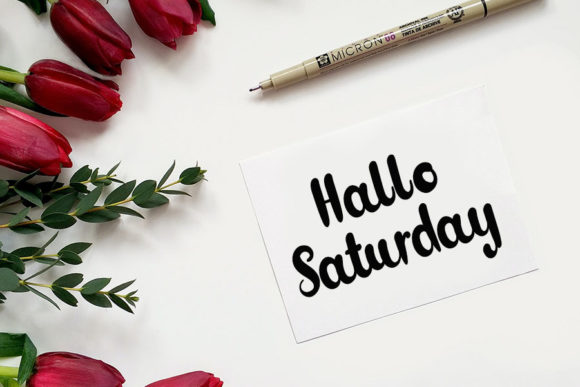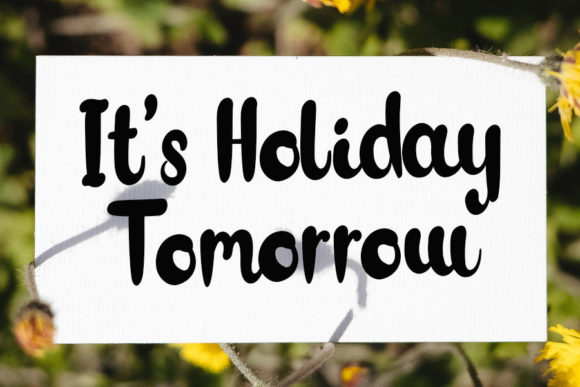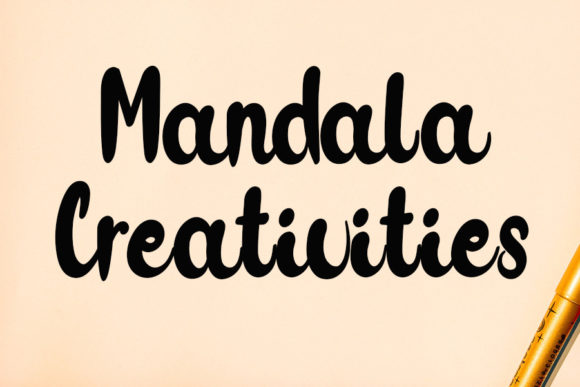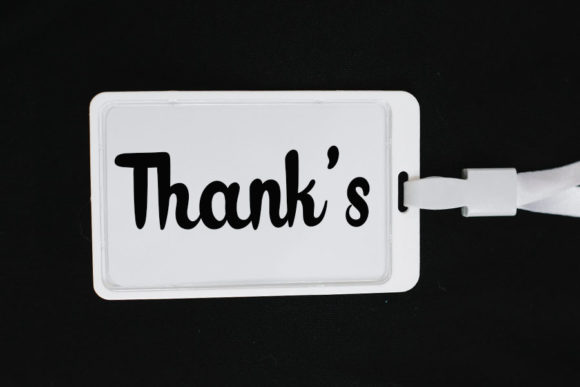
Introducing Happy Happiness Font: The Ultimate Choice for Adding a Touch of Romance to Your Designs
Are you a designer or crafter looking for a font that can add a romantic feel to your next project? Look no further than the Happy Happiness font. This enchanting handwritten font is versatile and has a wide spectrum of applications, making it the perfect choice for a variety of design needs. From greeting cards to headlines, Happy Happiness is guaranteed to bring a touch of whimsy and charm to your work.
The Characteristics of Happy Happiness Font
Happy Happiness is a beautifully crafted handwritten font that exudes warmth and personality. Its enchanting curves and loops make it perfect for designs that require a personal touch. The font’s versatility is one of its standout features, allowing it to be used in a range of applications, from formal to informal. Whether you’re creating a wedding invitation, a greeting card, or a social media post, Happy Happiness is the perfect choice.
What Makes Happy Happiness Font So Special?
So, what sets Happy Happiness apart from other fonts? Here are a few features that make it a standout choice:
- Unique and Whimsical Design: Happy Happiness has a one-of-a-kind design that is both whimsical and romantic. Its enchanting curves and loops make it perfect for designs that require a personal touch.
- Versatile: This font is incredibly versatile and can be used in a range of applications, from formal to informal.
- Handwritten: Happy Happiness is a handwritten font, which gives it a personal and authentic feel.
- Easily Readable: Despite its whimsical design, Happy Happiness is easily readable, making it perfect for body text and headlines.
Uses of Happy Happiness Font
Happy Happiness is a versatile font that can be used in a range of applications, including:
- Greeting Cards: Add a personal touch to your greeting cards with Happy Happiness. Its whimsical design makes it perfect for special occasions like weddings, birthdays, and anniversaries.
- Headlines: Use Happy Happiness to create eye-catching headlines for your blog posts, social media posts, or advertisements.
- Wedding Invitations: Add a touch of romance to your wedding invitations with Happy Happiness. Its elegant design makes it perfect for formal and informal wedding invitations.
- Social Media Posts: Use Happy Happiness to create engaging social media posts that stand out from the crowd.
Tips for Using Happy Happiness Font
Here are a few tips for using Happy Happiness font effectively:
- Pair it with Other Fonts: Happy Happiness pairs well with other fonts, especially sans-serif fonts. Experiment with different font combinations to find the perfect pairing.
- Use it for Headlines and Titles: Happy Happiness is perfect for headlines and titles. Use it to create eye-catching headings that grab attention.
- Experiment with Colors: Happy Happiness looks great in a range of colors. Experiment with different colors to find the perfect shade for your design.
In conclusion, Happy Happiness font is a versatile and enchanting handwritten font that is perfect for designers and crafters looking to add a romantic feel to their designs. Its unique and whimsical design makes it perfect for a range of applications, from greeting cards to headlines. With its ease of use and readability, Happy Happiness is a great choice for anyone looking to add a personal touch to their designs.